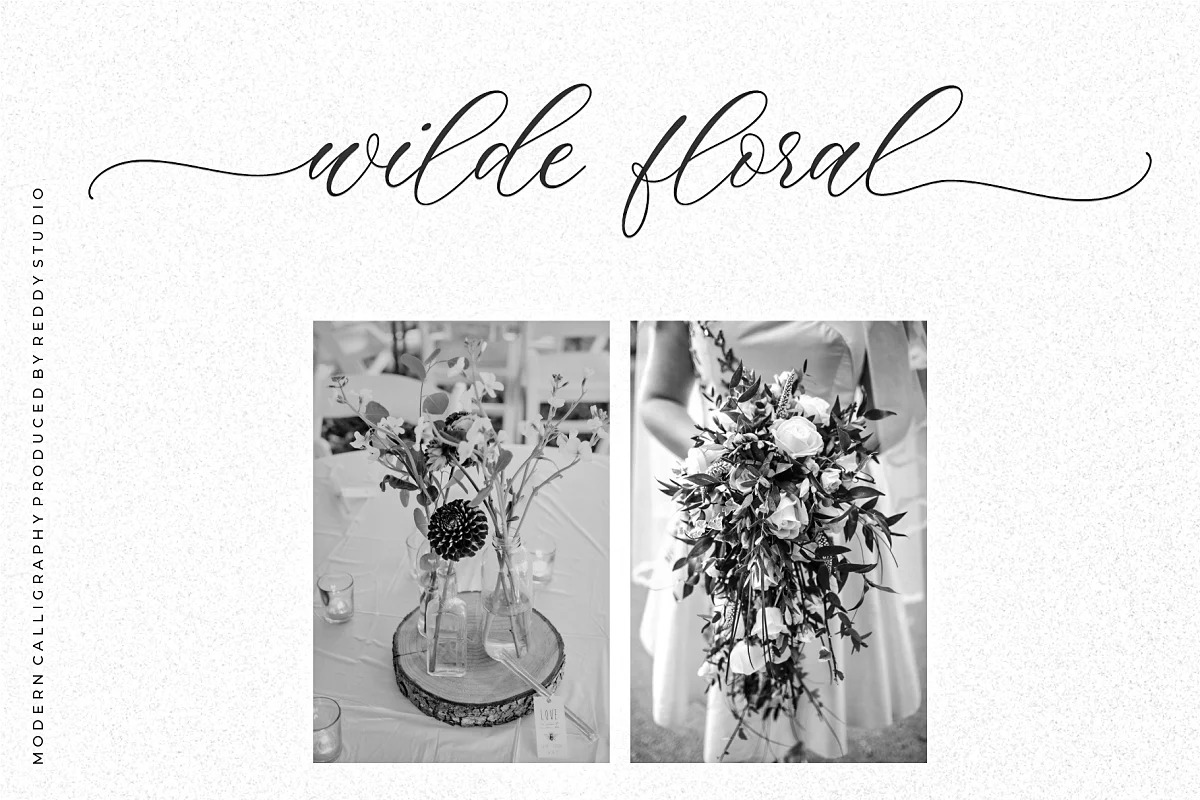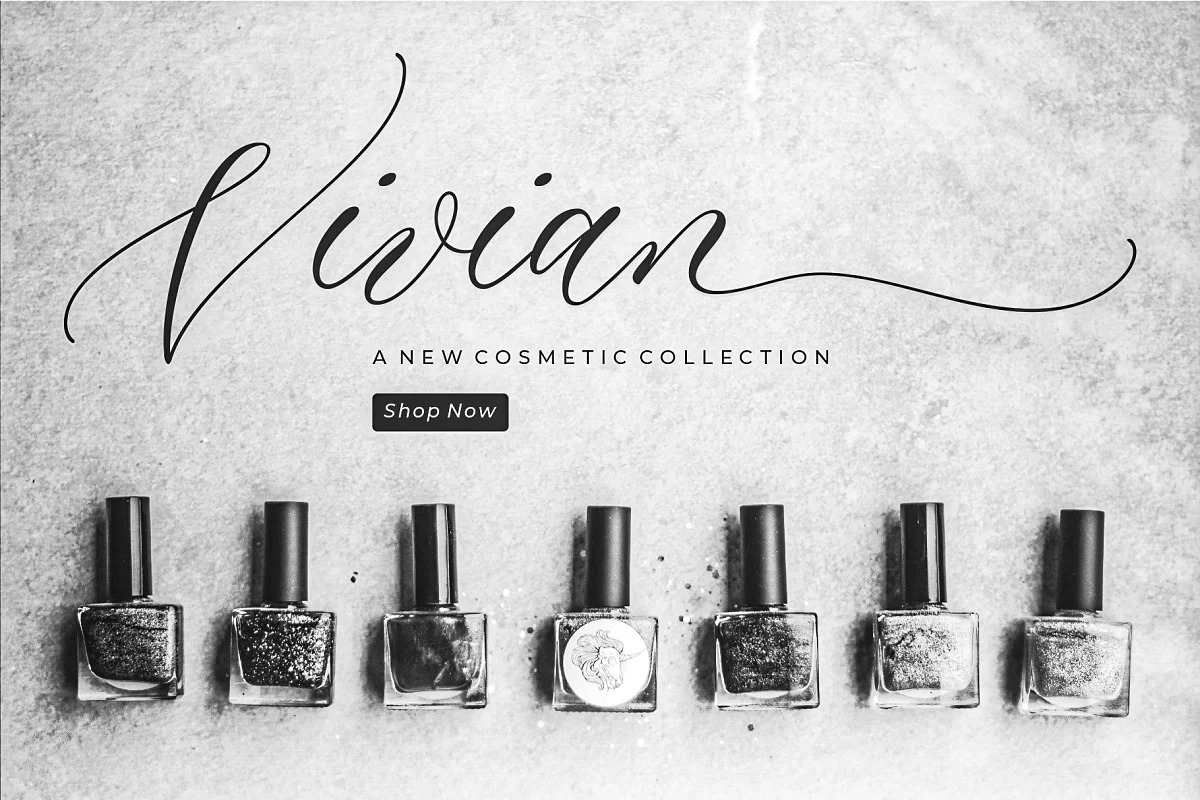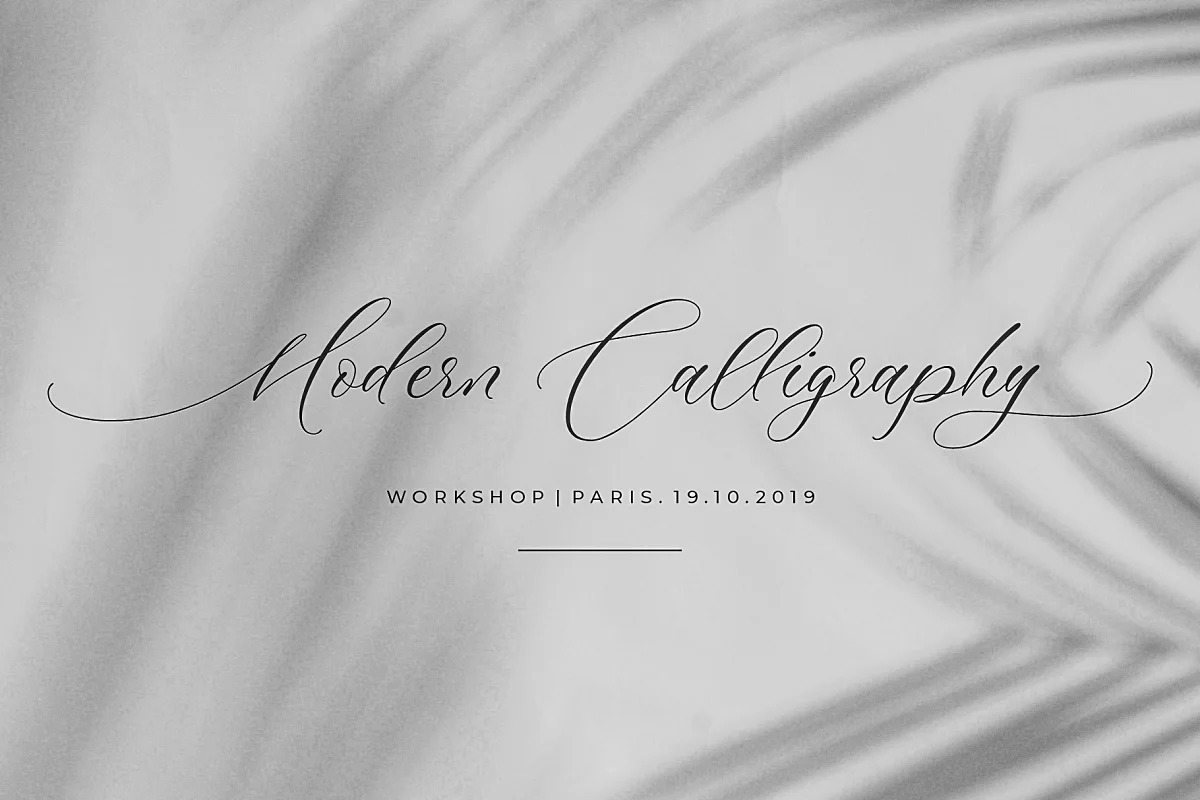
Multiverse Font
Multiverse Calligraphy Font
This is an incredibly elegant and delicate handwritten font manufactured by RedyStudio. It is full of life and movement which will add a modern sensibility to your graphic designs. Think runway shows, model and designer photography, fashion mags, beauty, cosmetics, and jewelry marketing campaigns. See how good it looks in tandem with other script font styles? Watch out because consumer appetite for luxe products is at an all-time high! This curly font can also be used for wedding invitations or to define your blog header.